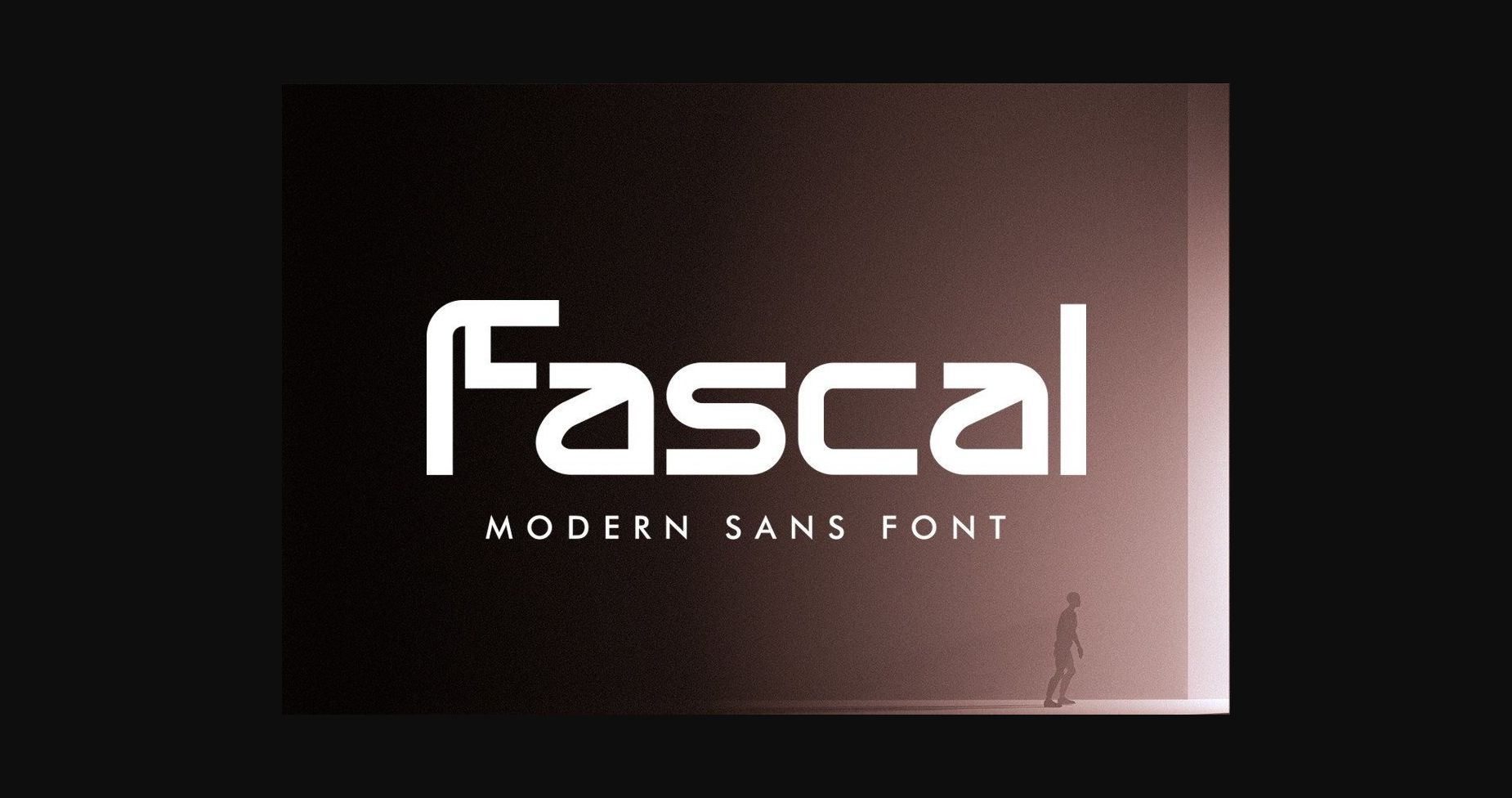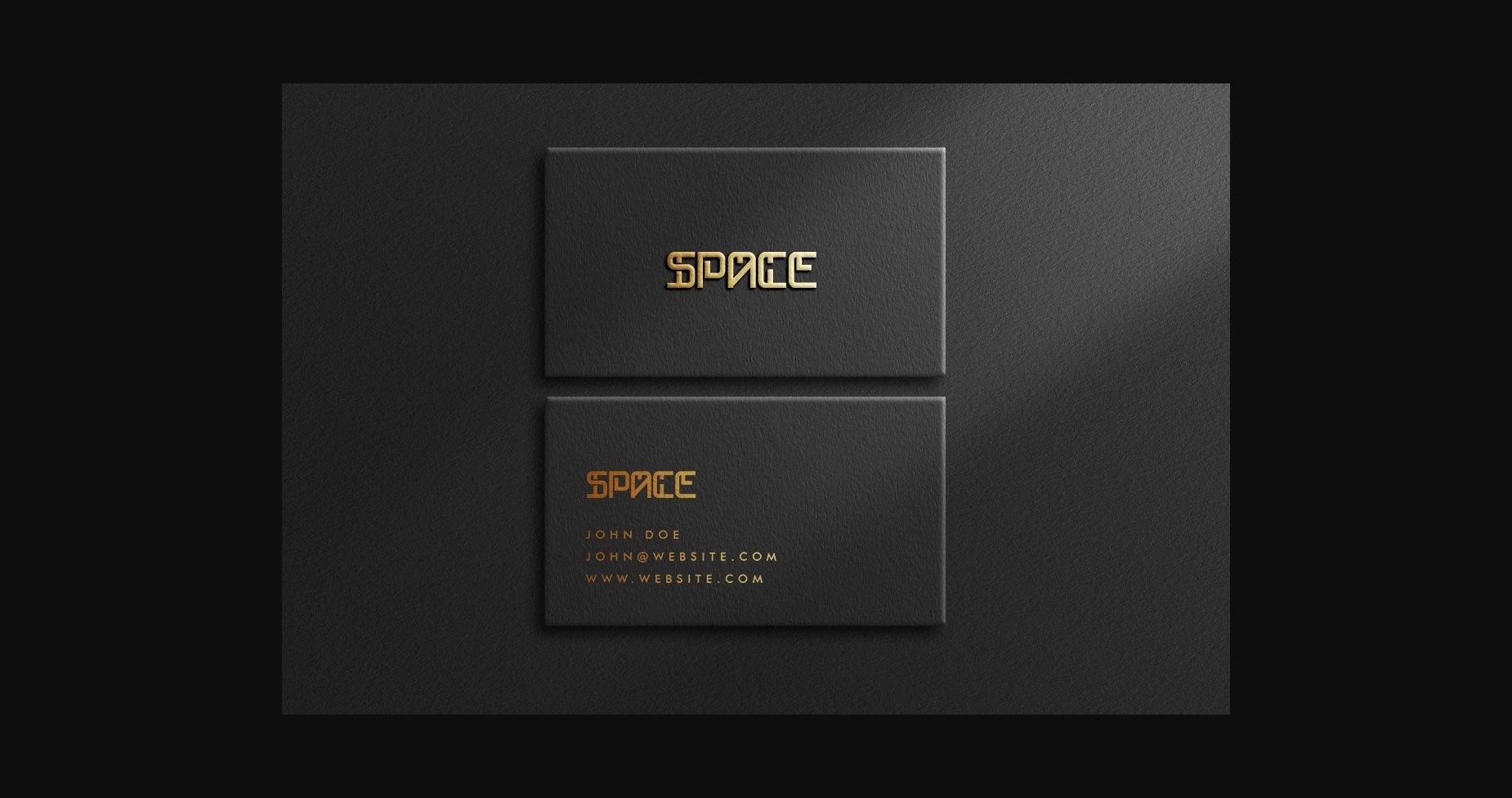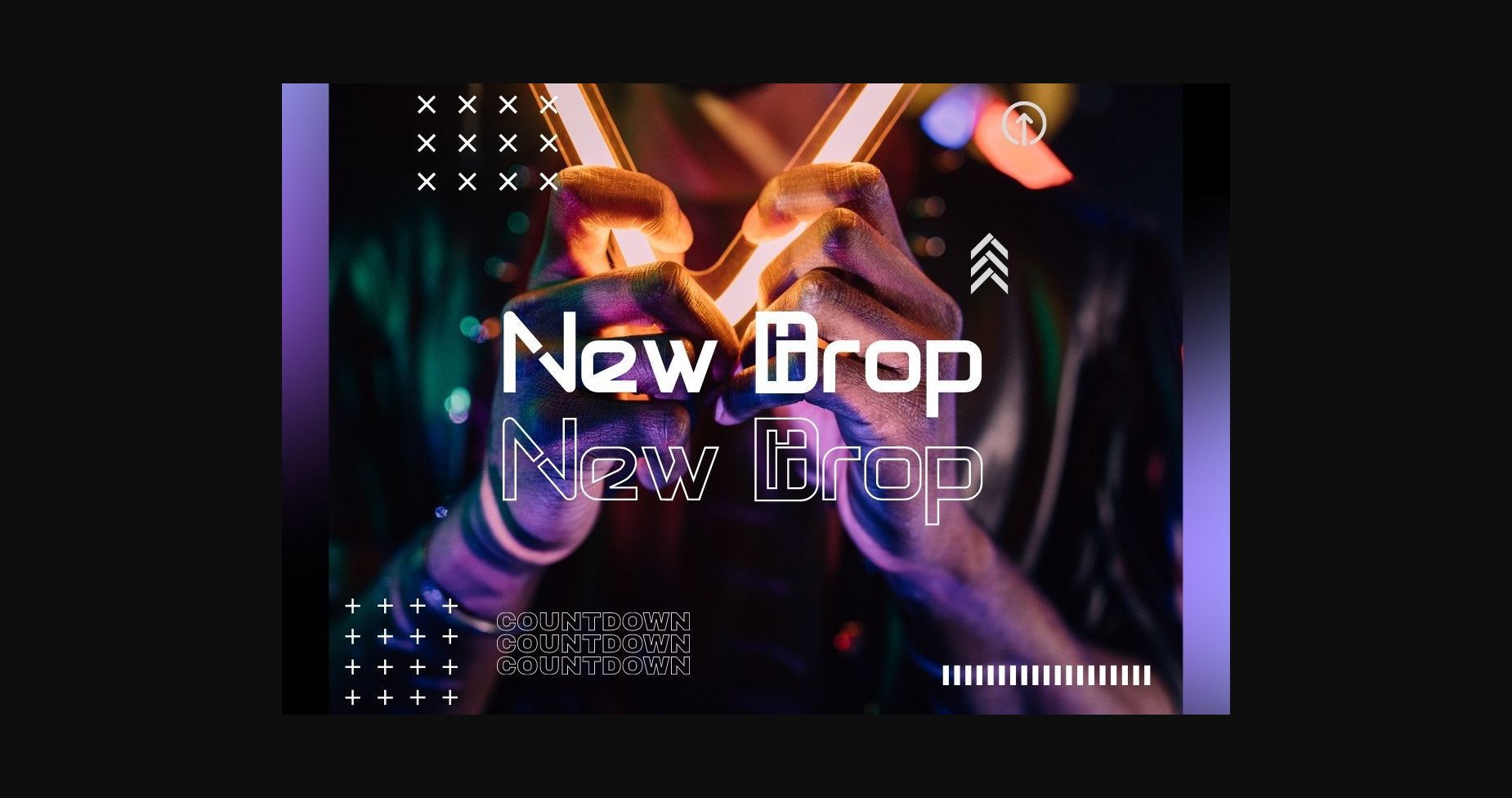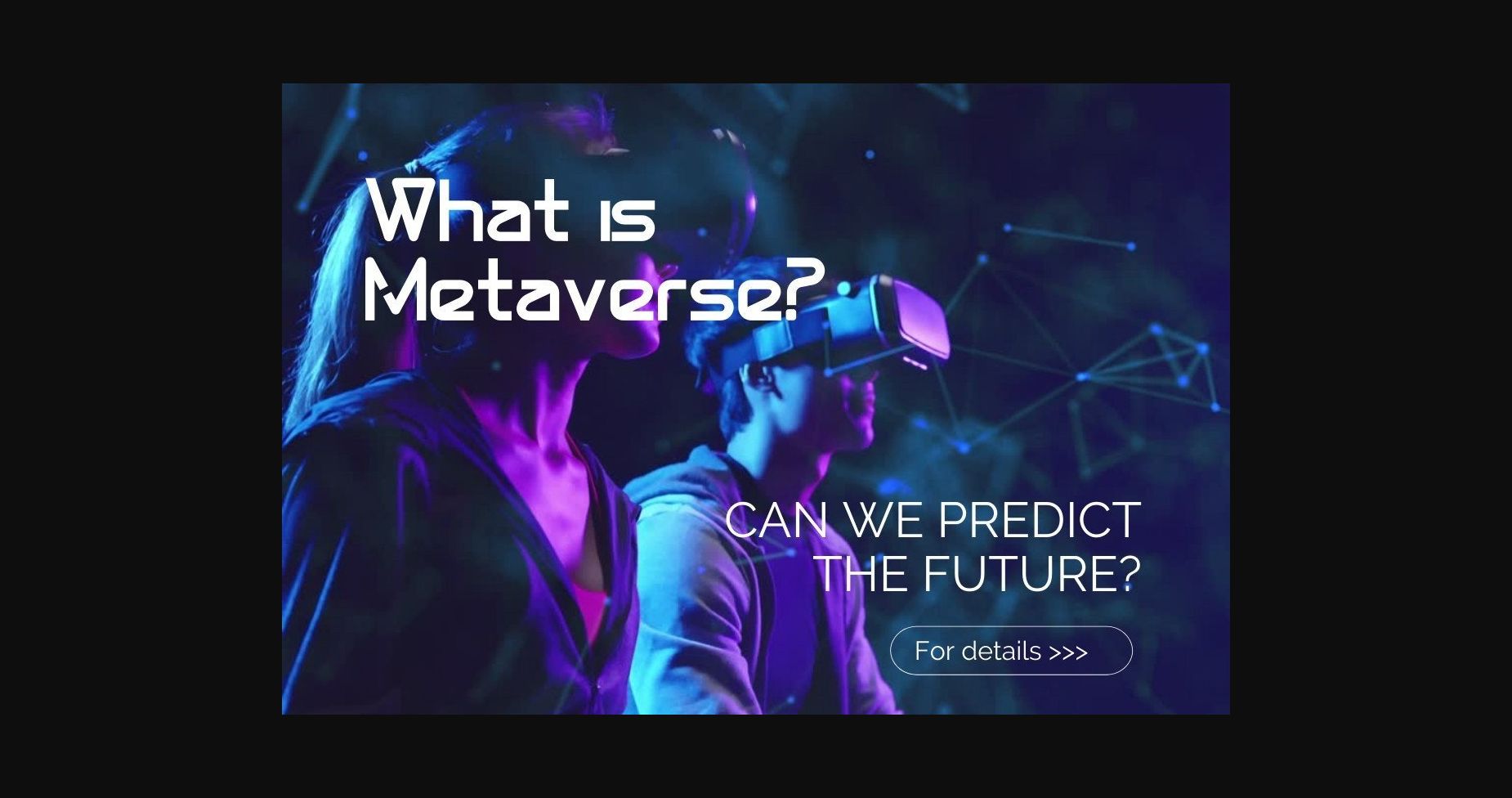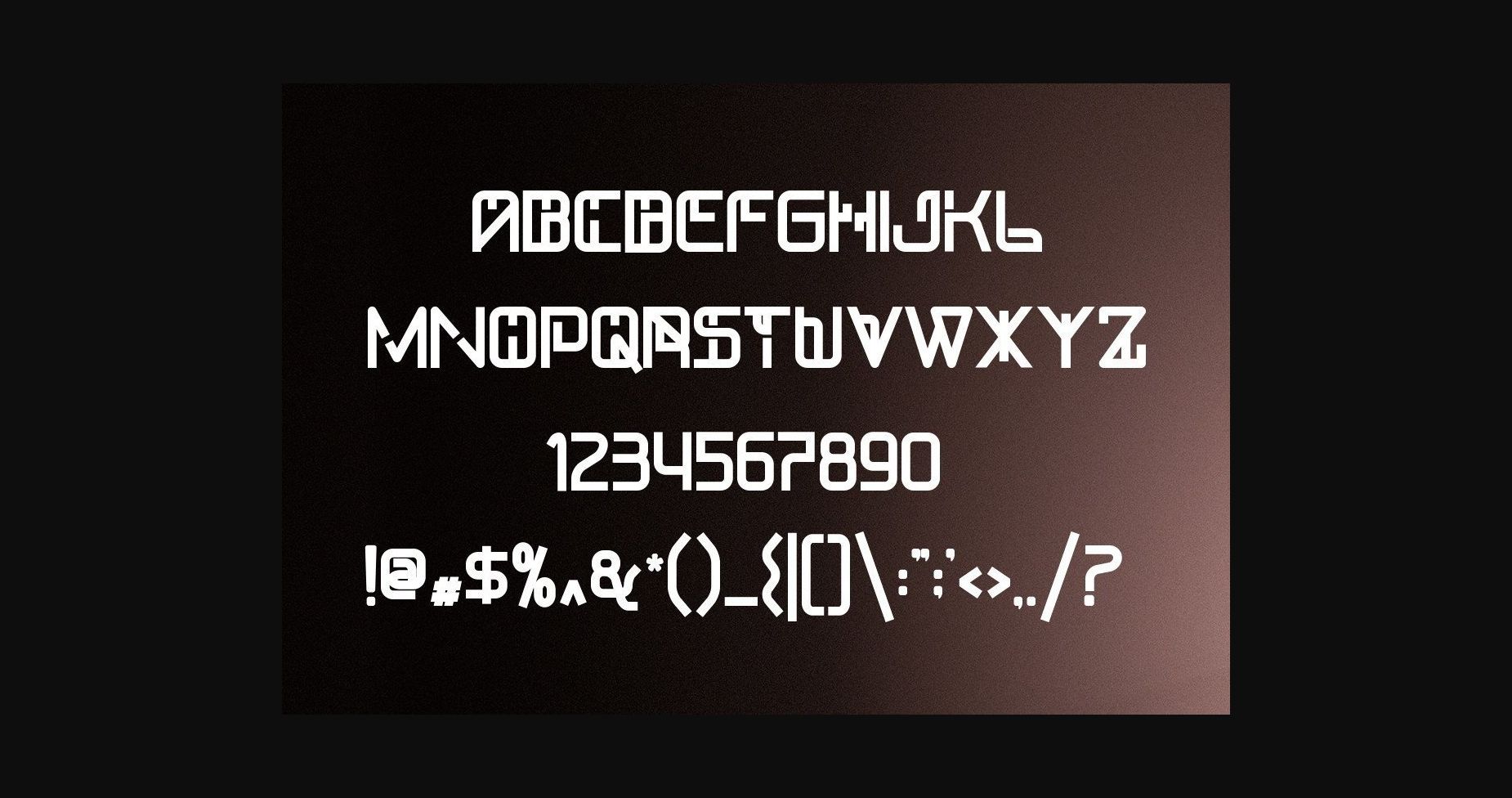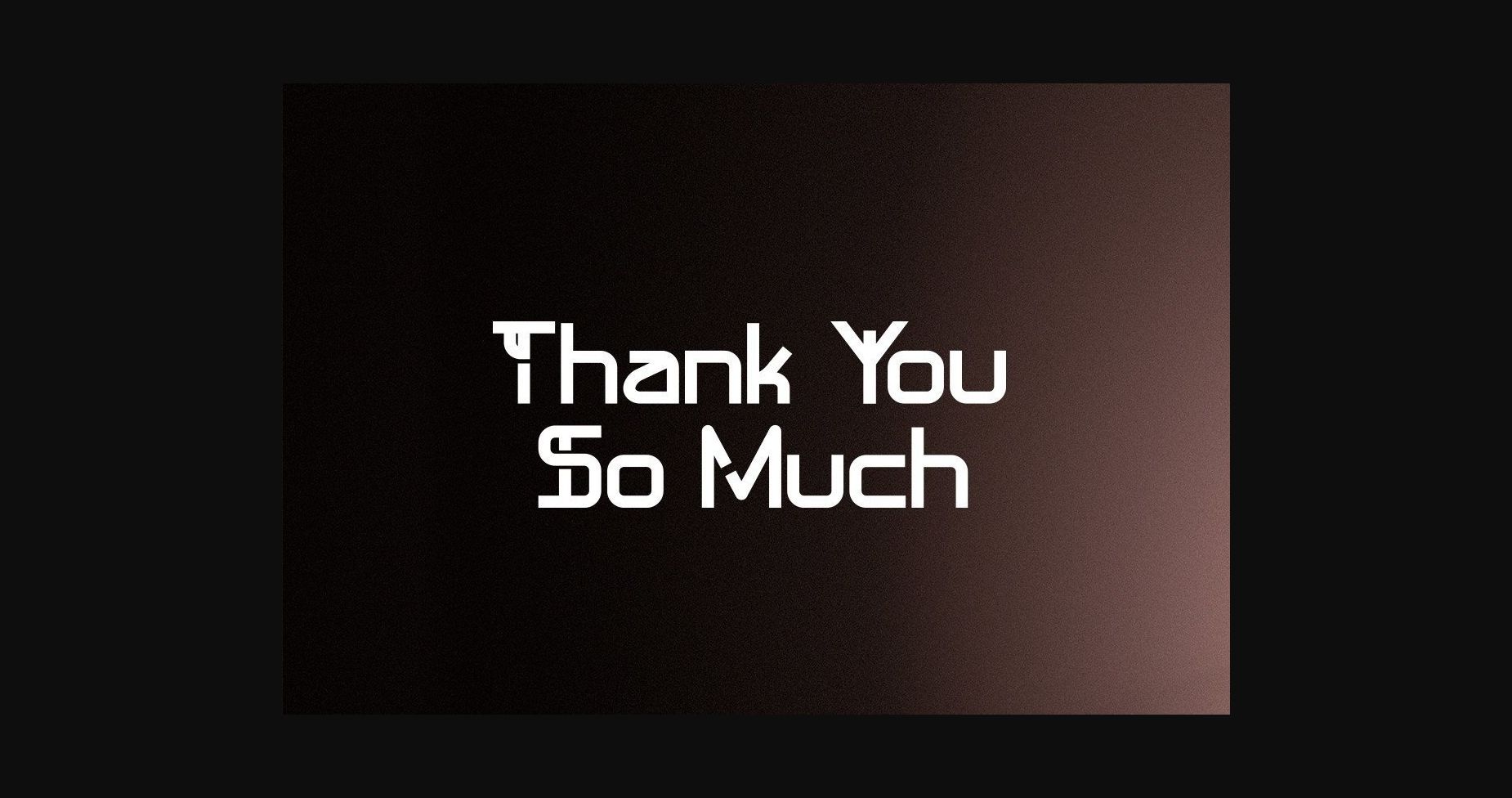
Fascal Font
About Fascal Font
Fascal is a sans serif font with unique lowercase that will make your design looks futuristic and modern. You can use this font for any purpose, especially to make logotypes.